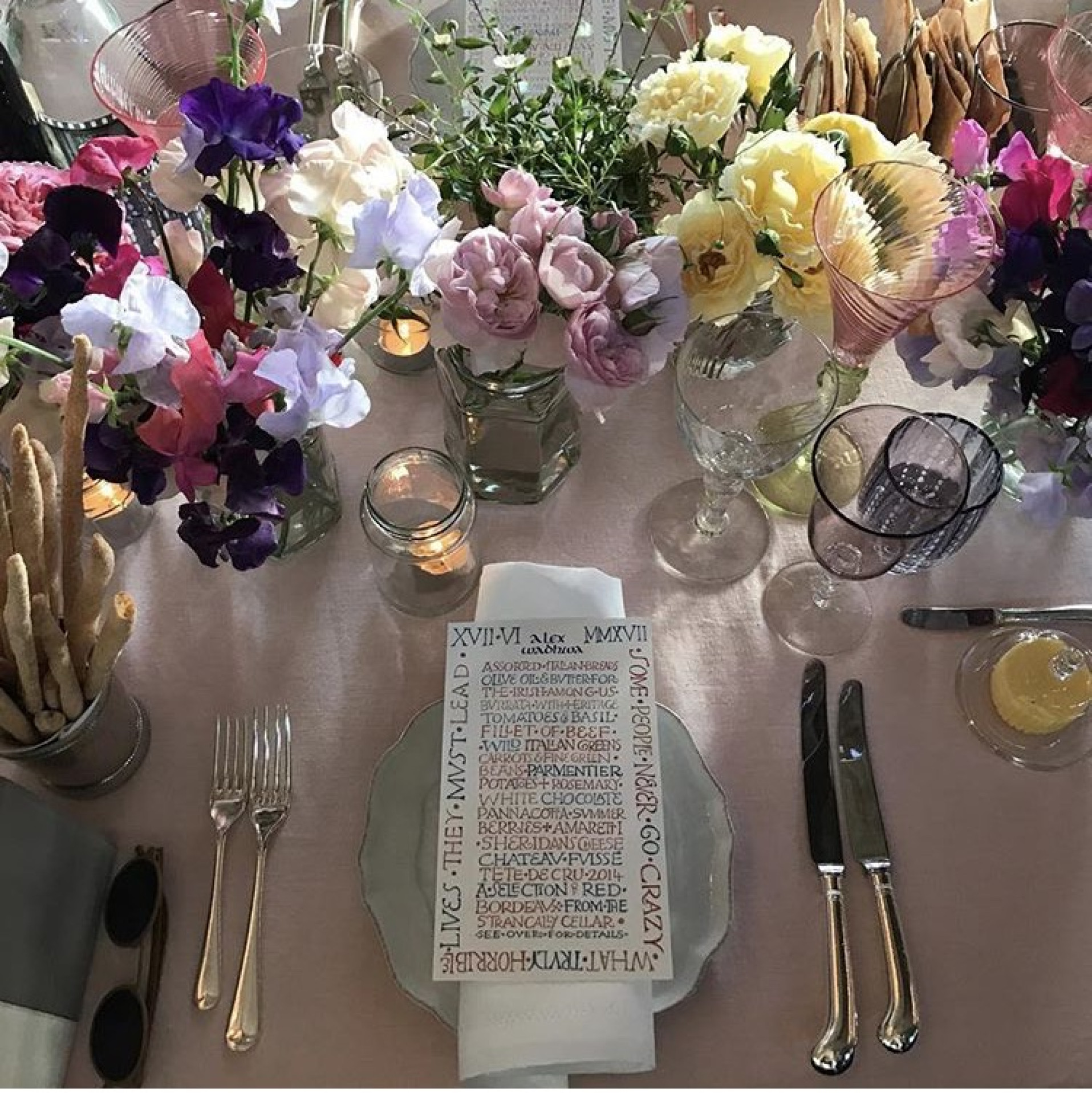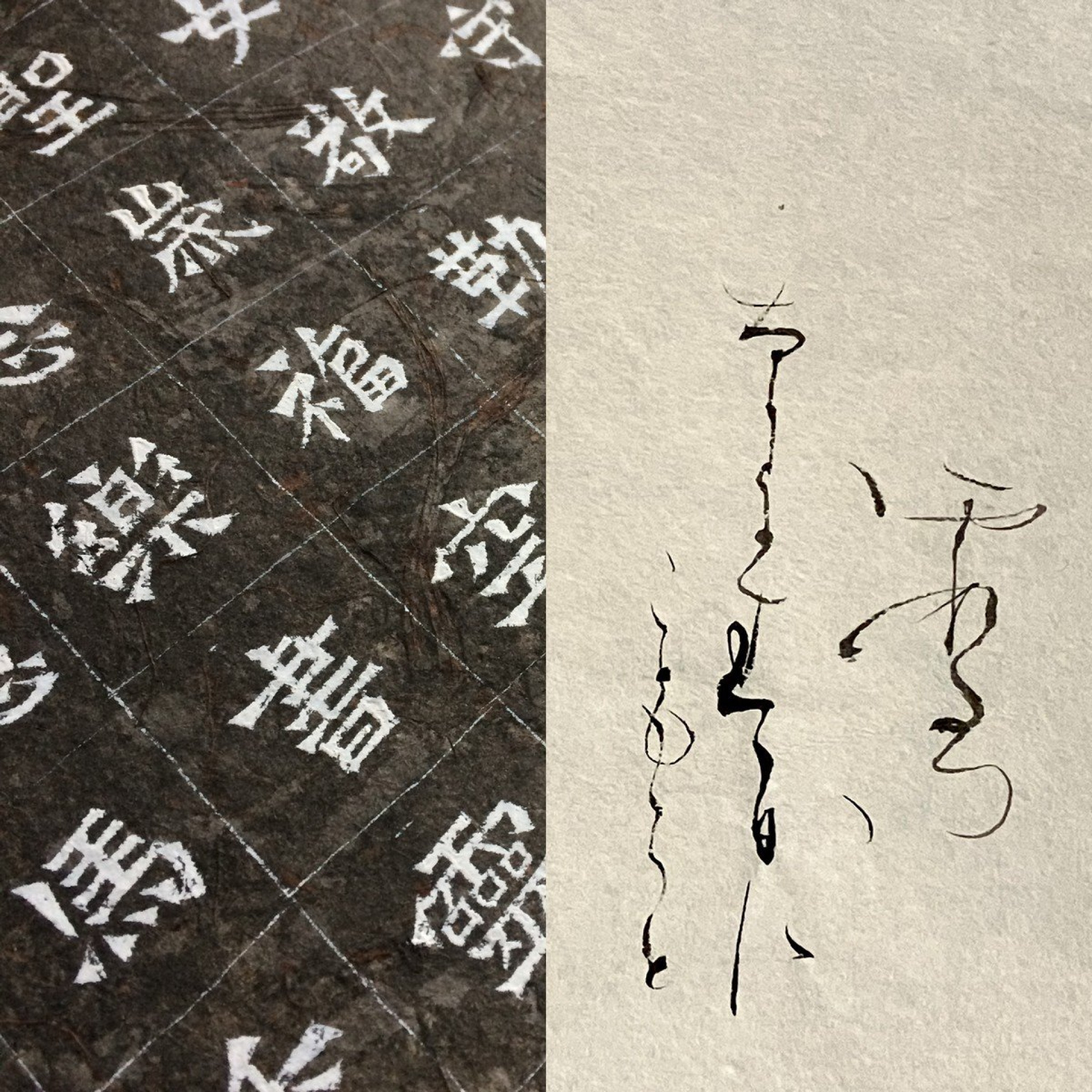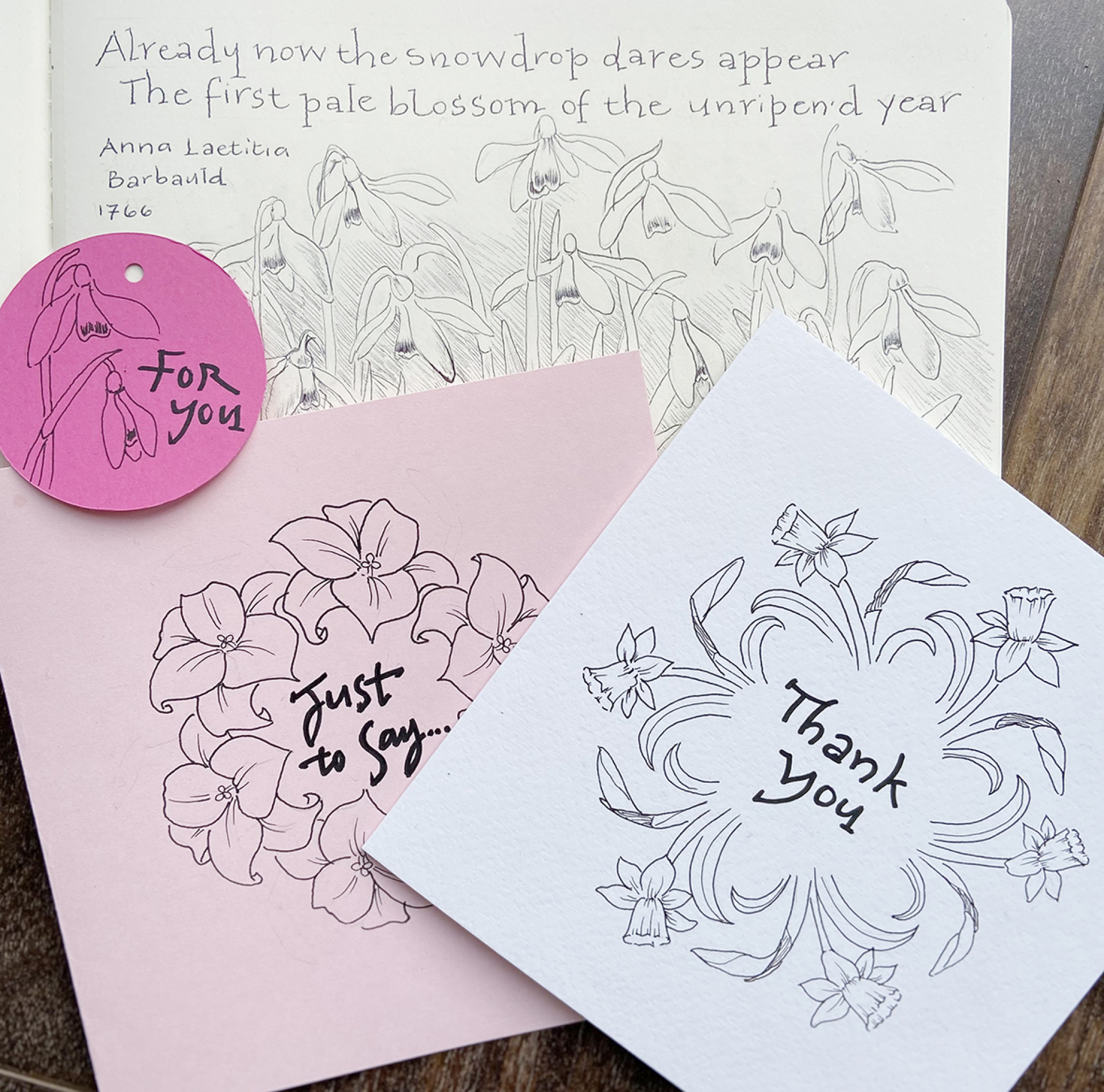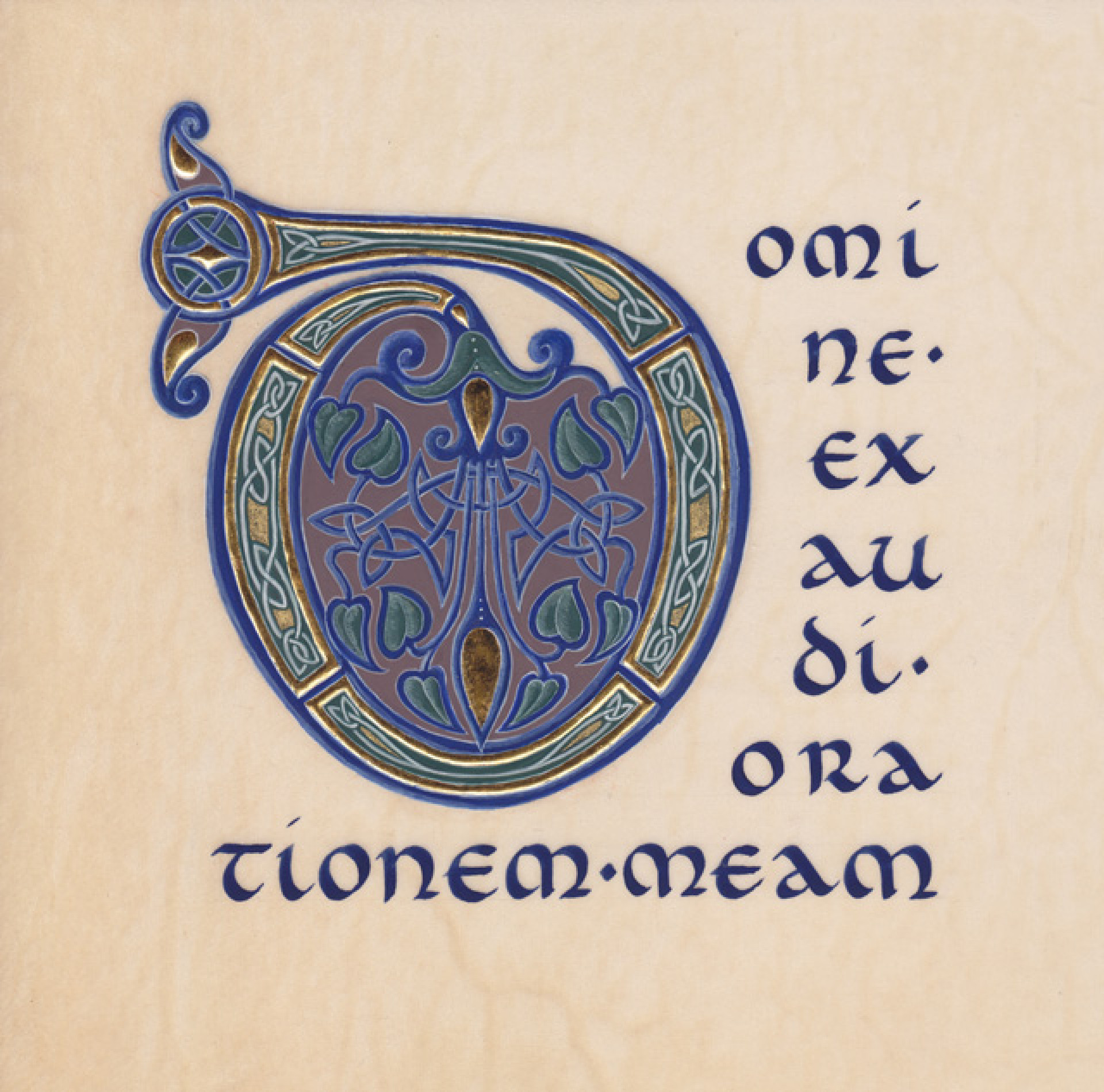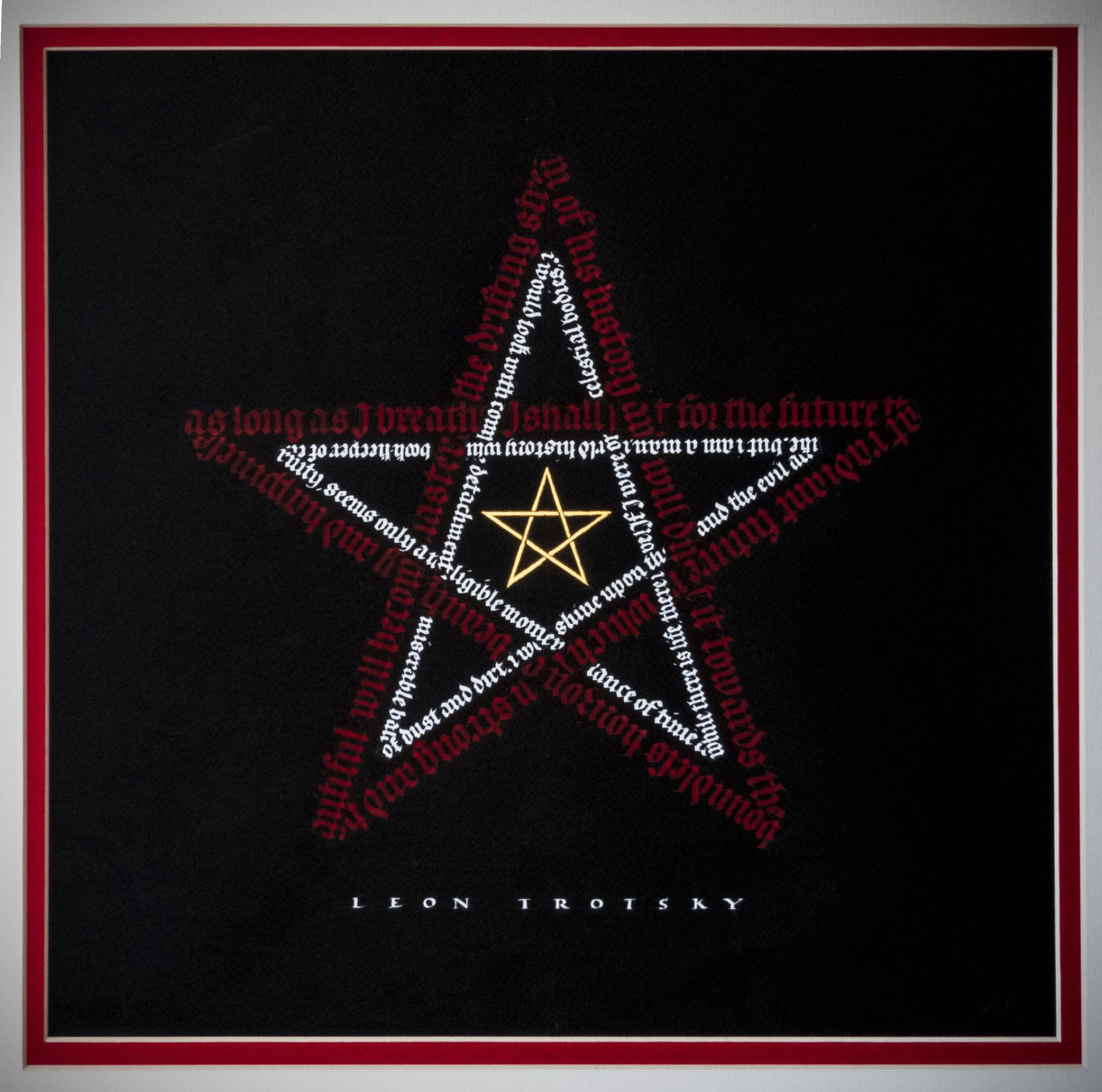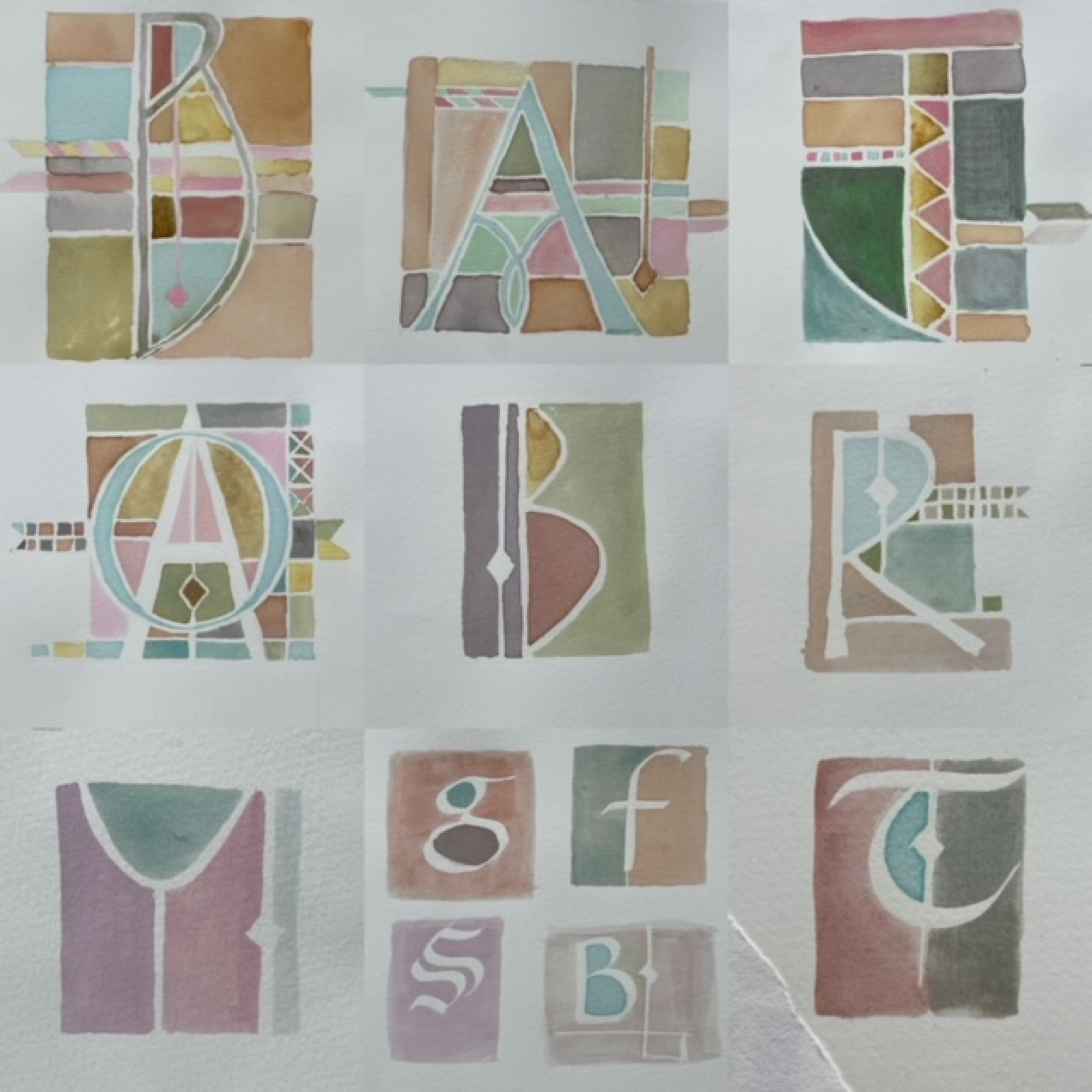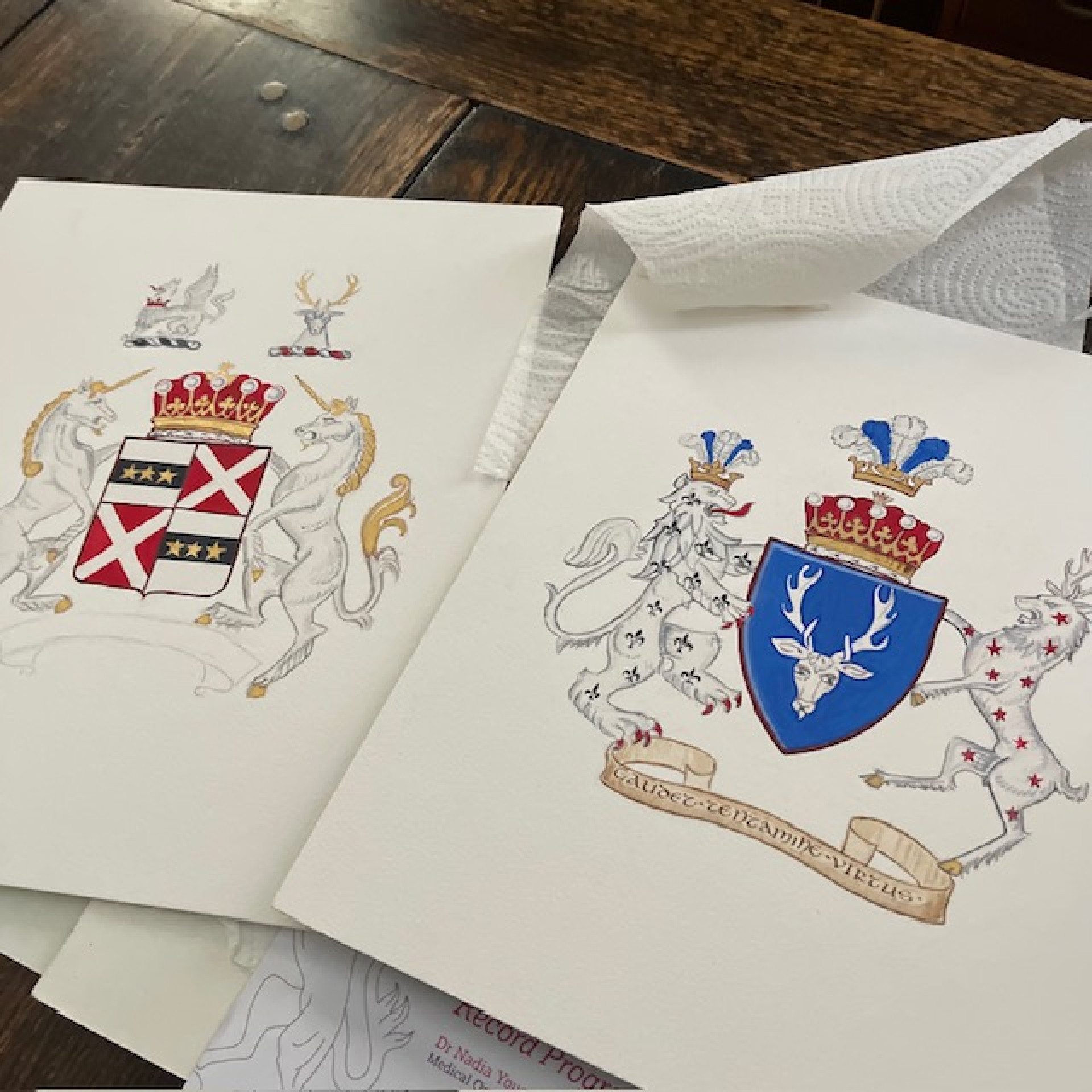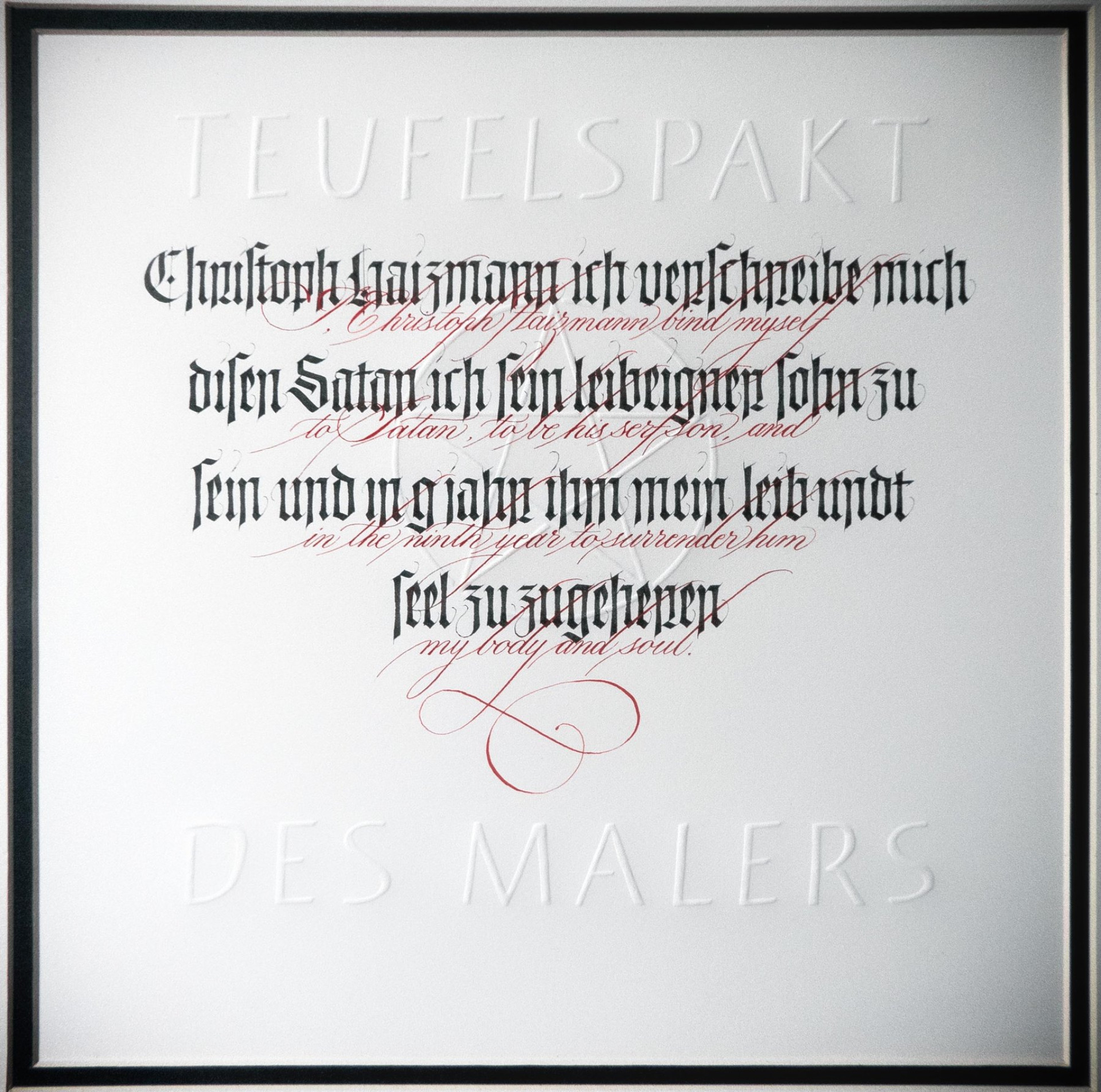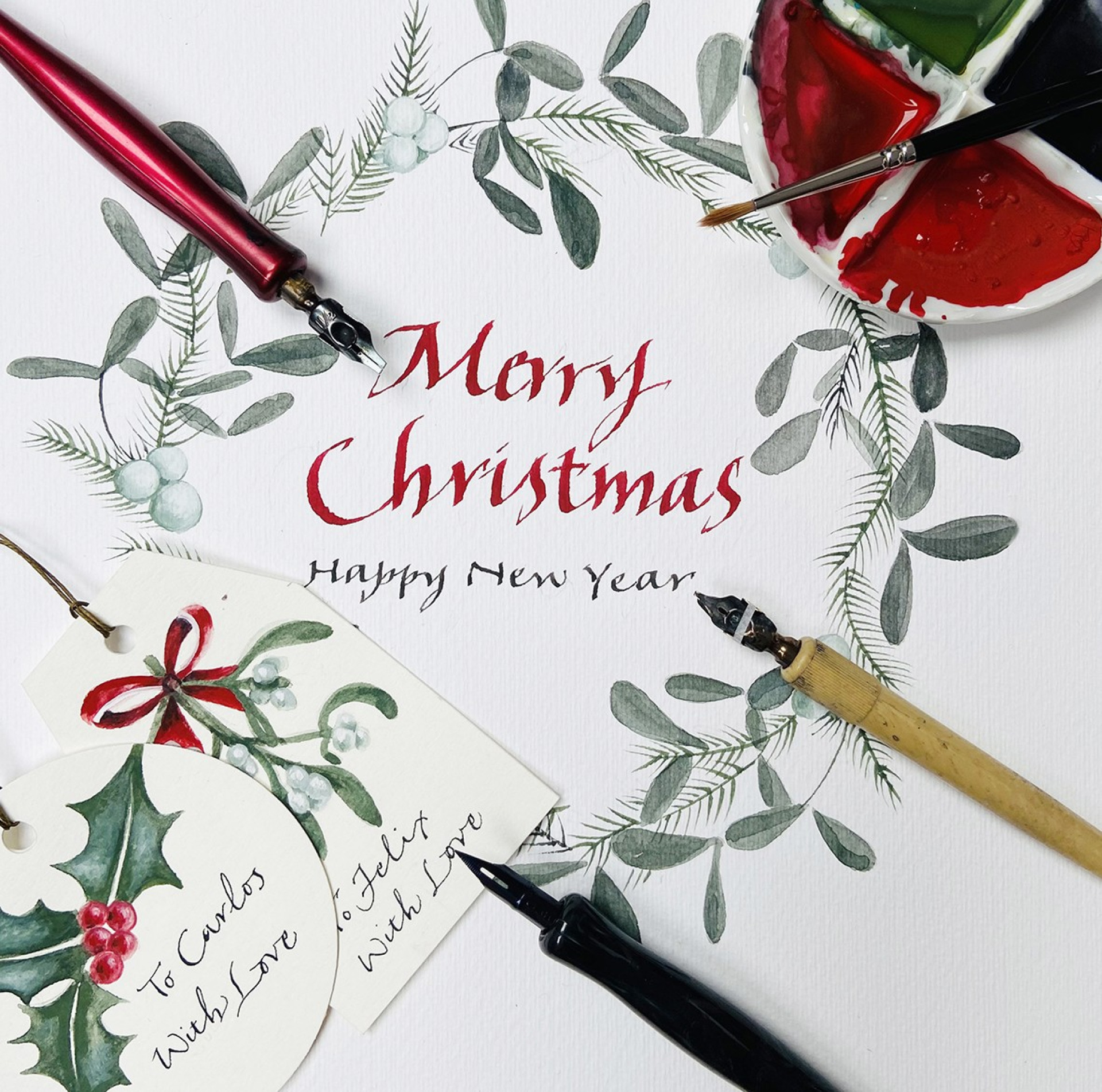
Michela Antonello FCLAS
Calligraphy, lettering and illumination on paper and vellum using metal nibs, quills and brushes; wood-mounted linocuts; traditional and modern gilding. Specialising in commemorative pieces, especially remembrance books, presentation scrolls, certificates, wall pieces and personalised slate plates. Digital design for printed materials and lasercutting. Commissions range from place cards to public art.
Paula Comparini
Paula graduated from Reigate School of Art and Design in 2002, and has been working as a freelance calligrapher since 2003. Working to commission from her studio in London, Paula’s clients include many leading event companies as well as poems, readings or vows for individuals. Paula is a member of CLAS and SSI.
Rosella Garavaglia
Rosella Garavaglia is a visual artist, she has worked as a calligrapher & lettering artist in a variety of media including design for print, inscriptions in wood, stone, glass, and collage. Although she still examines how writing can convey emotion and ideas, lately she has focused more on Asemic Writing—a style of creating marks on a page that do not form words, where the message comes from the flow, intensity, and movement of the marks rather than language itself. This artistic approach is evident in her mixed-media paintings and collages created on recycled board books, where the choice of materials and the techniques used are deeply connected.
Lu Guthrie
Lu Guthrie trained at Roehampton University (Surrey) 2005 in Calligraphy, Bookbinding and Illumination, then Heraldry at Reigate College.
Winner of the Scriveners Prize for calligraphy, illumination and Heraldry.
For the last 20 years, working as a professional calligrapher for Bond Street brands, Condè Nast magazines, National art Galleries, Museums, events companies and private clients.
Gwyneth Hibbett
Gwyneth is a calligrapher and lettering artist based in North London. She creates a wide variety calligraphic works including presentation certificates, memorial books, family trees and poetry.
She completed the Advanced Training Scheme of the Society of Scribes & Illuminators and is an accredited tutor for CLAS.
Carry Hornby
Carry Hornby (FRSA) is a Taiwanese-born Chinese brush artist, educator, and cultural practitioner based in South East London. Her work combines the use of traditional Chinese ink stone, ink stick, brush and Xuan paper exploring themes of nature, mindfulness, and cultural heritage.